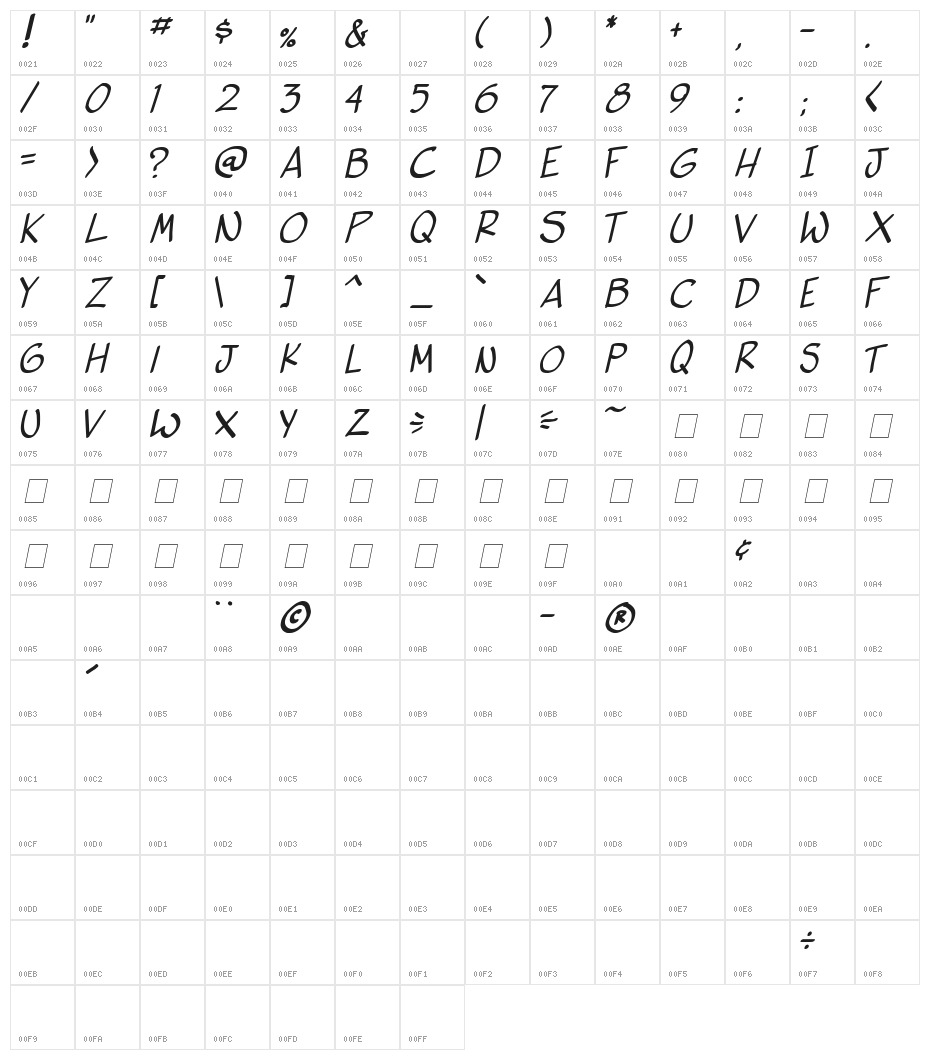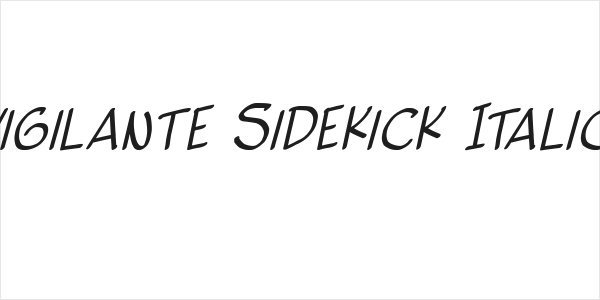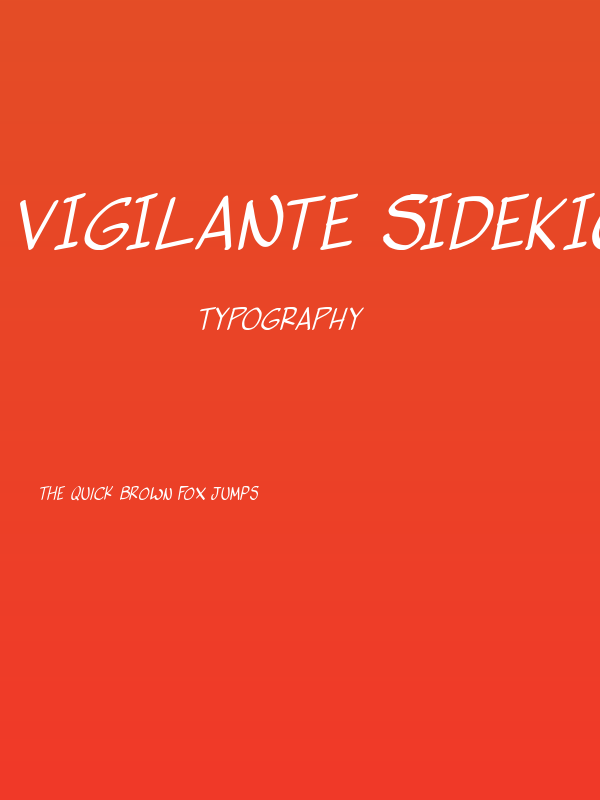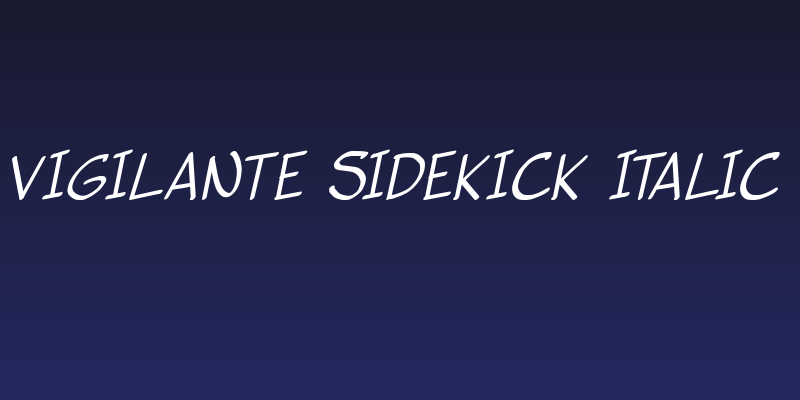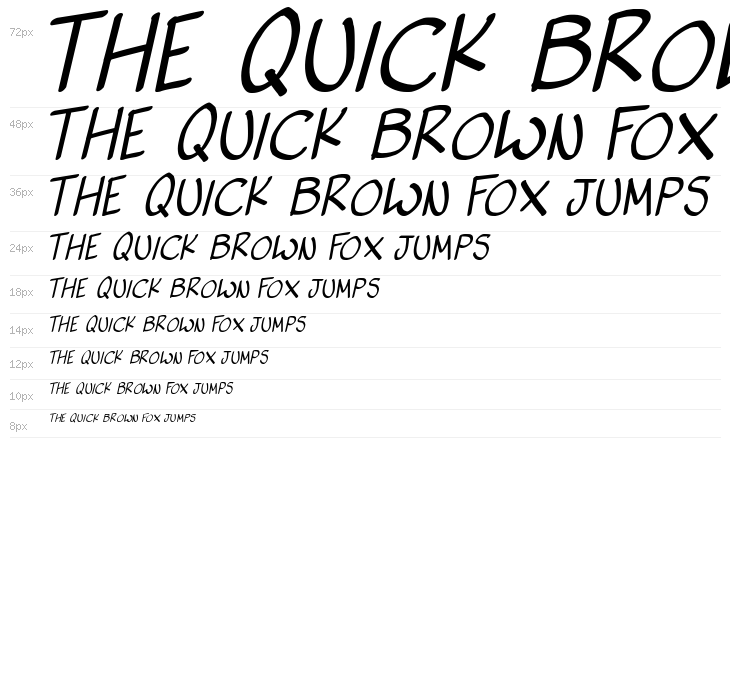
Vigilante Sidekick Italic Font
Vigilante Sidekick Italic Description
This font features a dynamic and energetic style, characterized by its italicized, handwritten appearance. The letters are slightly slanted, giving a sense of motion and fluidity. The strokes are smooth and consistent, with a medium contrast between thick and thin lines, adding to its legibility and charm. The characters are well-spaced, providing a balanced and harmonious look. This font's playful yet sophisticated style makes it suitable for a variety of creative projects.
| Proposed Projects | Ideal for comic books, greeting cards, playful branding, and creative posters. |